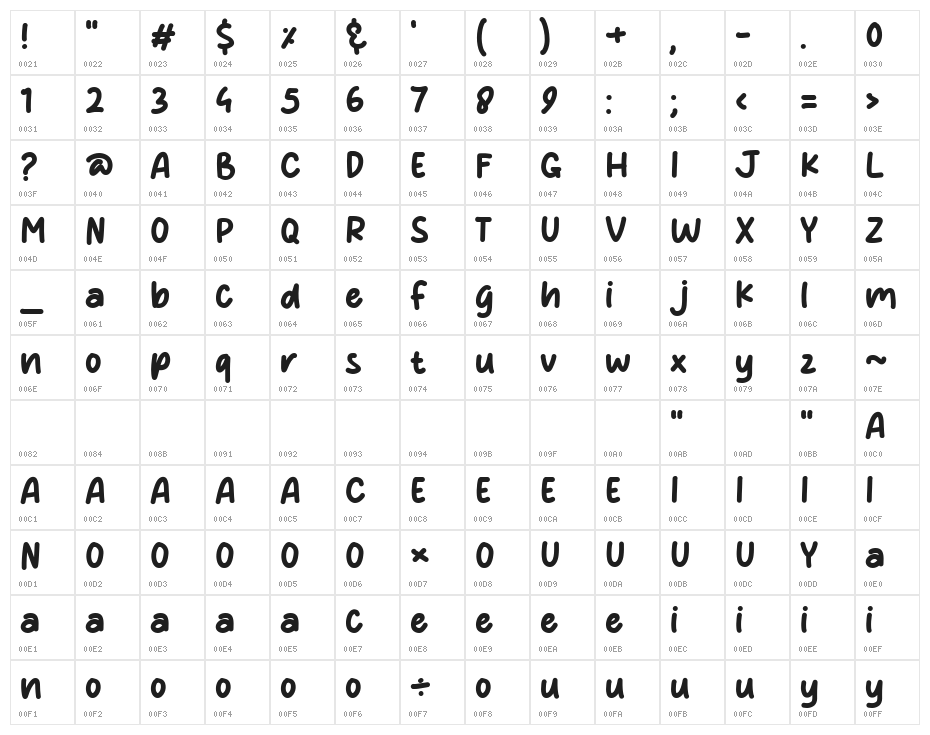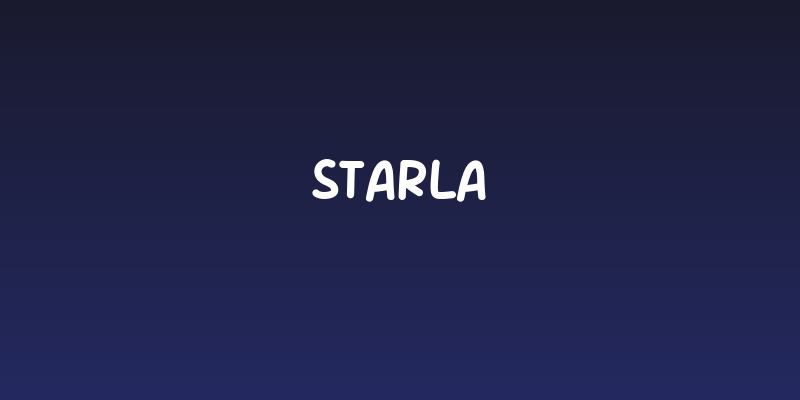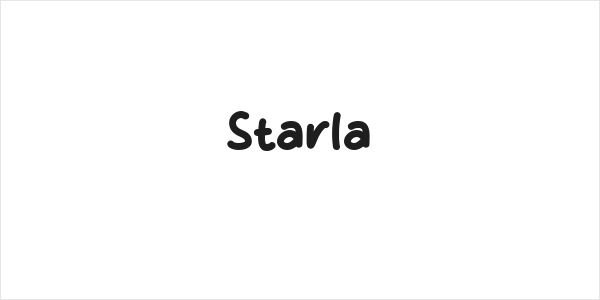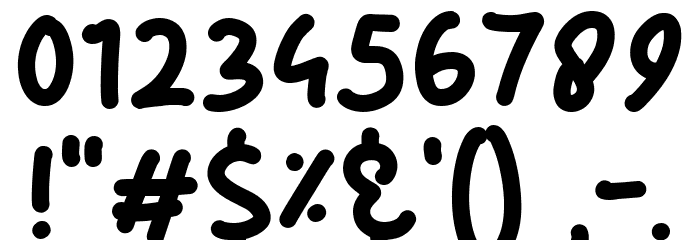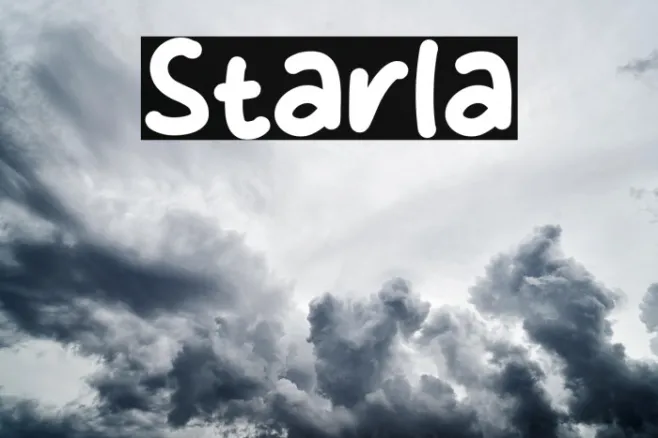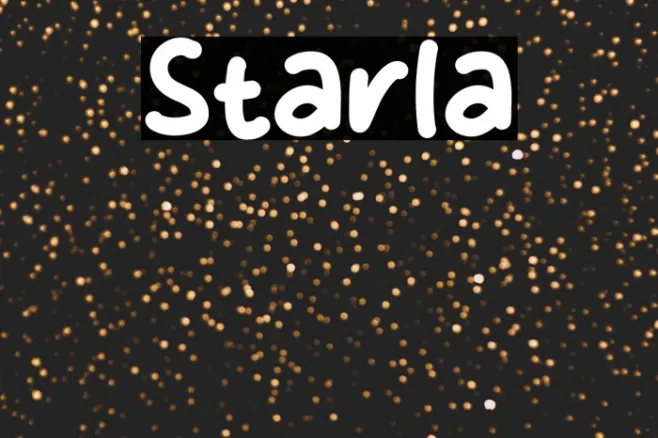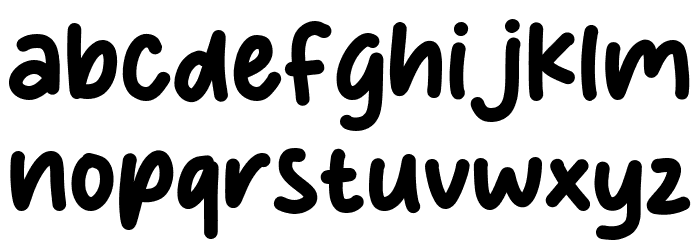
Starla Font
Starla Description
This playful and bold font features rounded, thick strokes that give it a friendly and approachable appearance. The characters are slightly irregular, adding a hand-drawn feel that enhances its casual and informal style. The uppercase and lowercase letters maintain a consistent weight, providing a cohesive look across the alphabet. Numbers and special characters are designed with the same playful aesthetic, making this font versatile for various creative projects. Its boldness ensures readability, while the rounded edges soften the overall look, making it suitable for a wide range of applications.
| Proposed Projects | Ideal for children's books, playful branding, casual invitations, and social media graphics. |